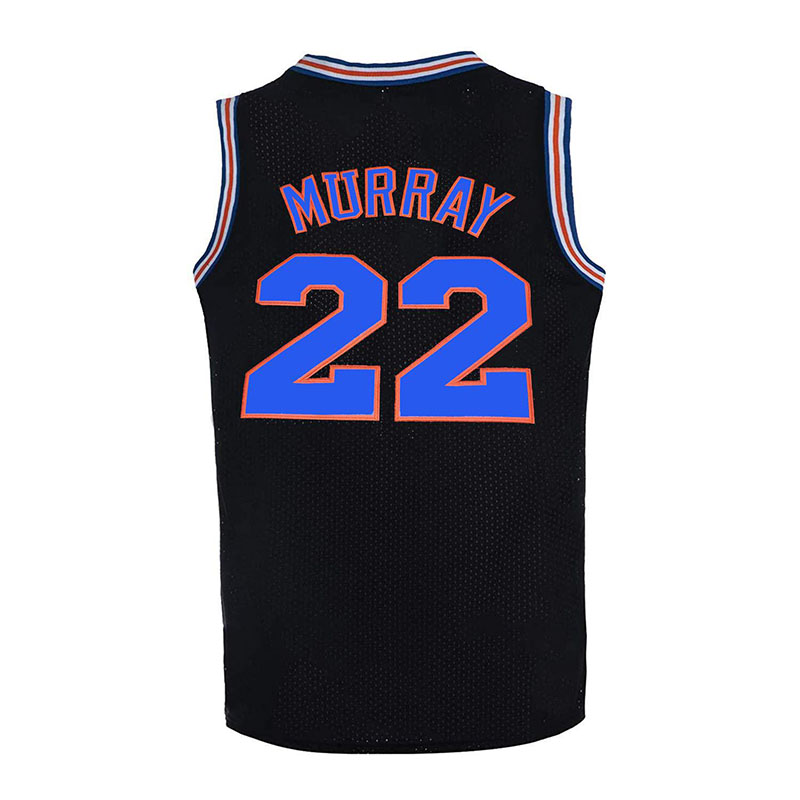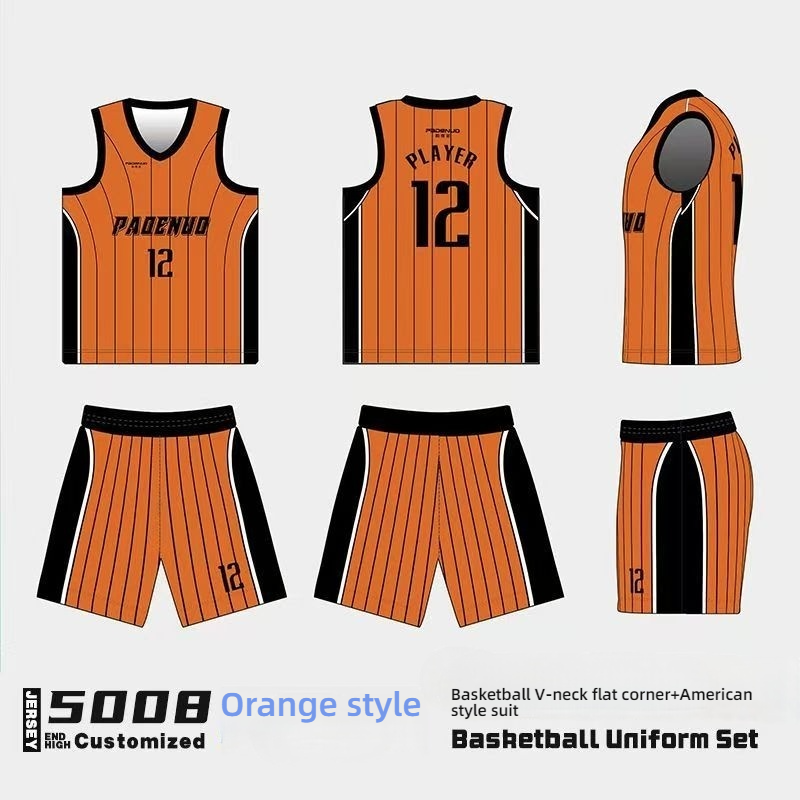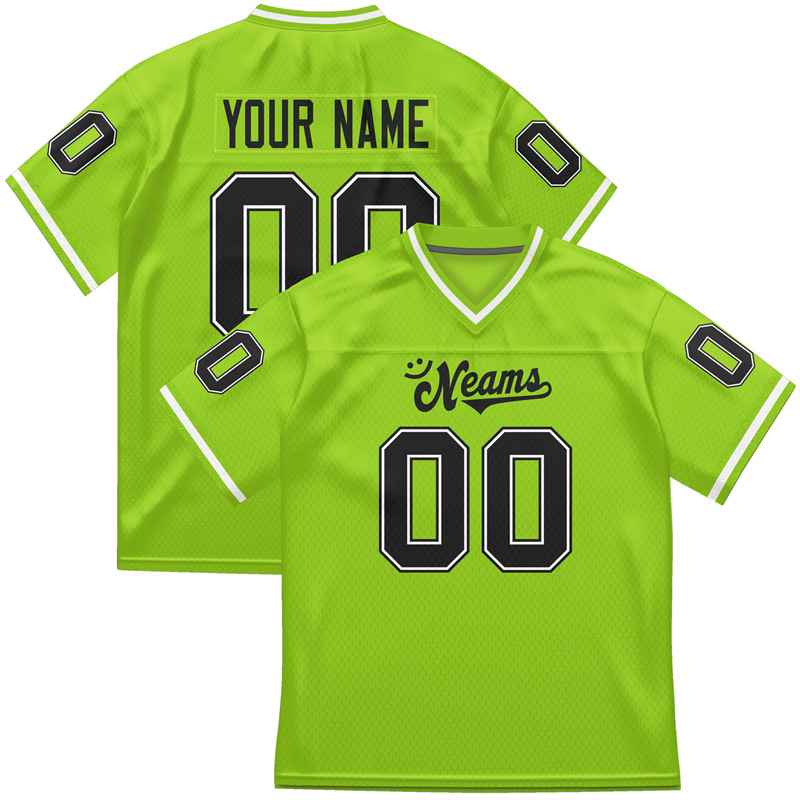
Optimizing Sports Jersey Font Design with Canva: IT, Quality, and Jersey Font Innovation
inside the realm of sports activities tradition, the jersey isn’t always most effective the uniform of athletes but also a provider of team spirit and logo photo. The typography on the jersey, as an crucial part of visible verbal exchange, not most effective impacts the general aesthetics of the jersey but additionally embodies the history, lifestyle, and emotions of the crew. this article will delve into the key factors of jersey typography layout, and through case studies, screen the particular components of a success jersey typography.
The importance of jersey font design
Font layout as a key detail in jersey layout no longer most effective contains the culture and spirit of the crew, however also directly affects the overall visible impact and emblem photograph of the jersey. the subsequent is a selected elaboration on the importance of jersey font layout:
speaking brand Philosophy: The font design at the jersey is an outside manifestation of the crew’s way of life. thru particular font styles, it may bring the group’s values, spirit, and logo philosophy. for example, rugged and sturdy fonts might also represent the crew’s tenacity, at the same time as elegant and flowing fonts may also bring the creative temperament of the crew.
enhancing reputation: In numerous sports activities, jerseys are the focal point of viewers and the media. a completely unique jersey font design can help the team stand out amongst many teams, enhancing viewer recognition and growing a emblem memory point.
improving visible effect: As an important provider of visual conversation, the exceptional of font layout directly impacts visible effect. suitable font design can harmonize with the shade and sample elements of the jersey, developing a cohesive basic visible effect and enhancing the cultured appeal of the jersey.
four. Reflecting the Spirit of sports activities: different sports activities have one of a kind requirements for font layout, that could replicate the traits of the game. for example, the jersey font of a basketball group may be greater concise and forceful to mirror the intensity and speed of the sport; while the jersey font of a football group may be more stylish to showcase the artistry of the sport.
five. supporting information Transmission: The font at the jersey is not handiest used to show the crew call and participant numbers, however may also consist of sponsor records, healthy dates, etc. properly-designed font could make these statistics greater clean and readable, enhancing the efficiency of information transmission.
Adapting to different activities: Jersey font layout wishes to don’t forget the visual outcomes in extraordinary situations, along with indoor vs. outside games, day vs. night. reasonable font design can make sure that the textual content at the jersey stays clean and legible below different lighting fixtures and environmental conditions.
Cultural Integration and Innovation: Jersey font design is an vital manifestation of cultural trade and innovation. Designers can combine cultural elements into the design by using the usage of historical fonts or neighborhood characteristic fonts, showcasing the specific attraction of the team.
The importance of jersey font layout can not be left out. It isn’t always best part of the crew’s photo but also an embodiment of brand value. A a success jersey font design can help the team stand out in fierce market opposition and win the favor and support of more fanatics.
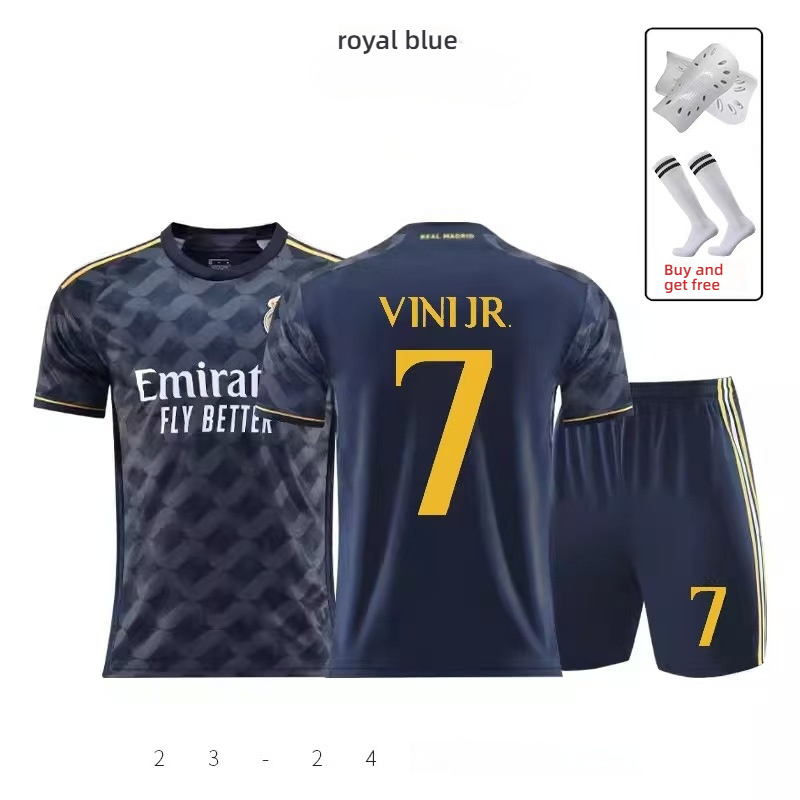
Choose the appropriate sports jersey font.
the selection of fonts in sports jersey design is critical, as it now not only influences the overall visible attraction of the jersey however also pertains to the team’s image and logo conversation. right here are a few key factors to remember:
The font need to align with the group’s subculture. exclusive teams have varying values and patterns, and the choice of font need to mirror the crew’s traditions, regional characteristics, or the character of the sport. for example, conventional soccer giants may select traditional and strong fonts, while emerging basketball teams may additionally lean towards current and colourful styles.
The font should be smooth to read. The font on the jersey serves because the identifier for athletes at some stage in games, and it need to ensure that both spectators and television visitors can actually understand it. easy and clear font designs assist decorate the performance of data transmission, specifically in rapid-paced matches.
three. The font length and placement should be reasonable. The font size at the jersey ought to now not be too big or too small, as this will look unbalanced or affect functionality. the location must also be carefully taken into consideration to make certain that the font does no longer impede numbers or disrupt the jersey’s stability.
Cultural Implies: every now and then, jersey font design may contain positive cultural connotations, including the usage of fonts with regional characteristics or combining the crew’s winning way of life to bring the crew’s values and cultural background.
through the comprehensive utility of those characteristics, designers can create jerseys with fonts which are both aesthetically alluring and realistic. This now not best enhances the overall visible appeal of the jersey however also adds specific attraction to the team’s emblem photo and fan lifestyle.